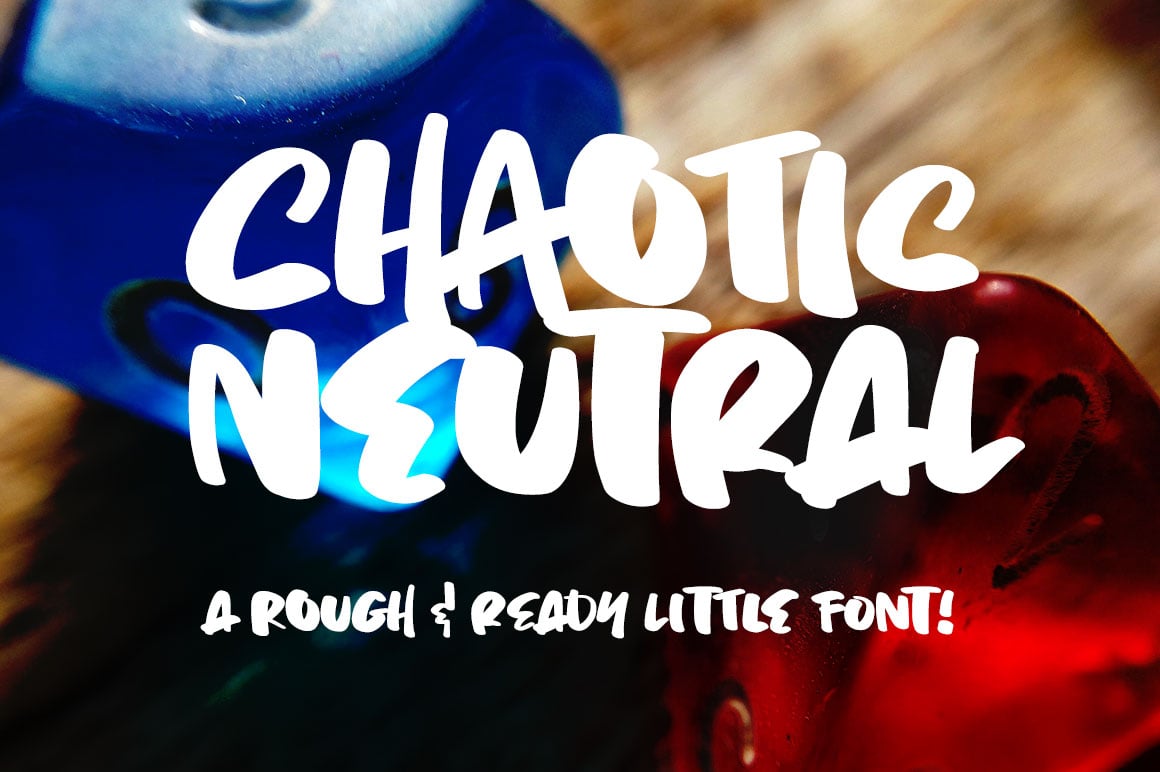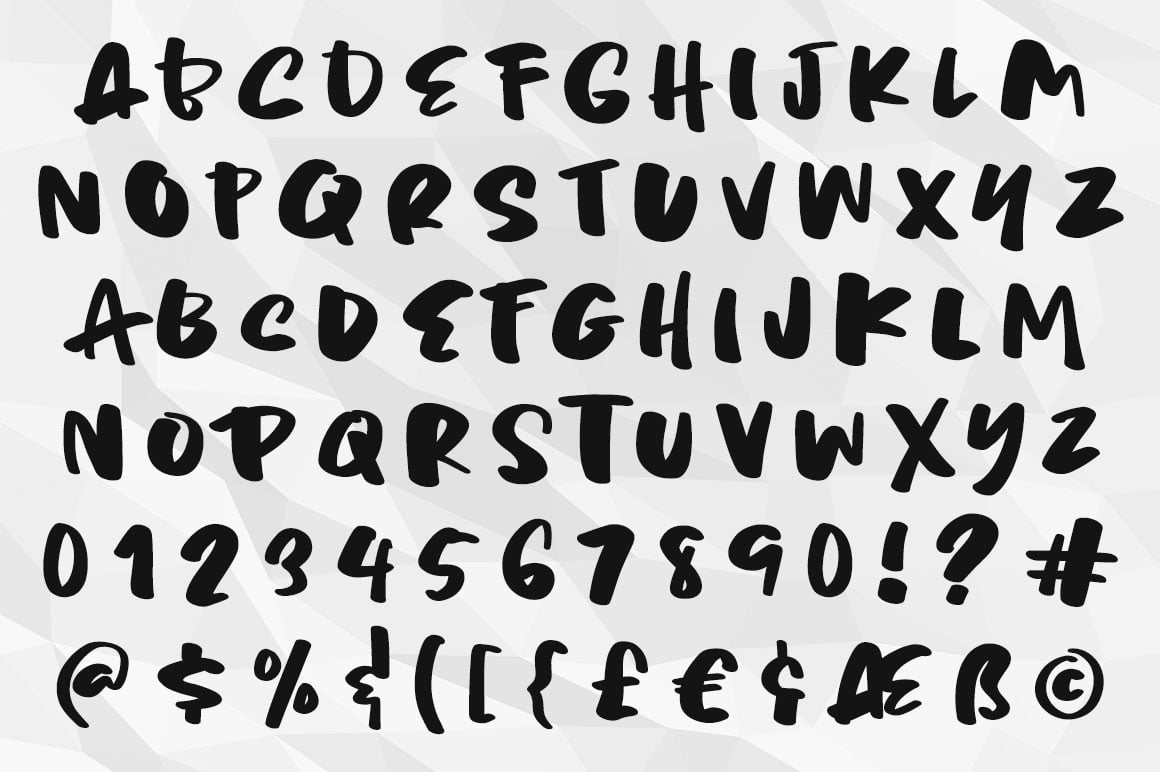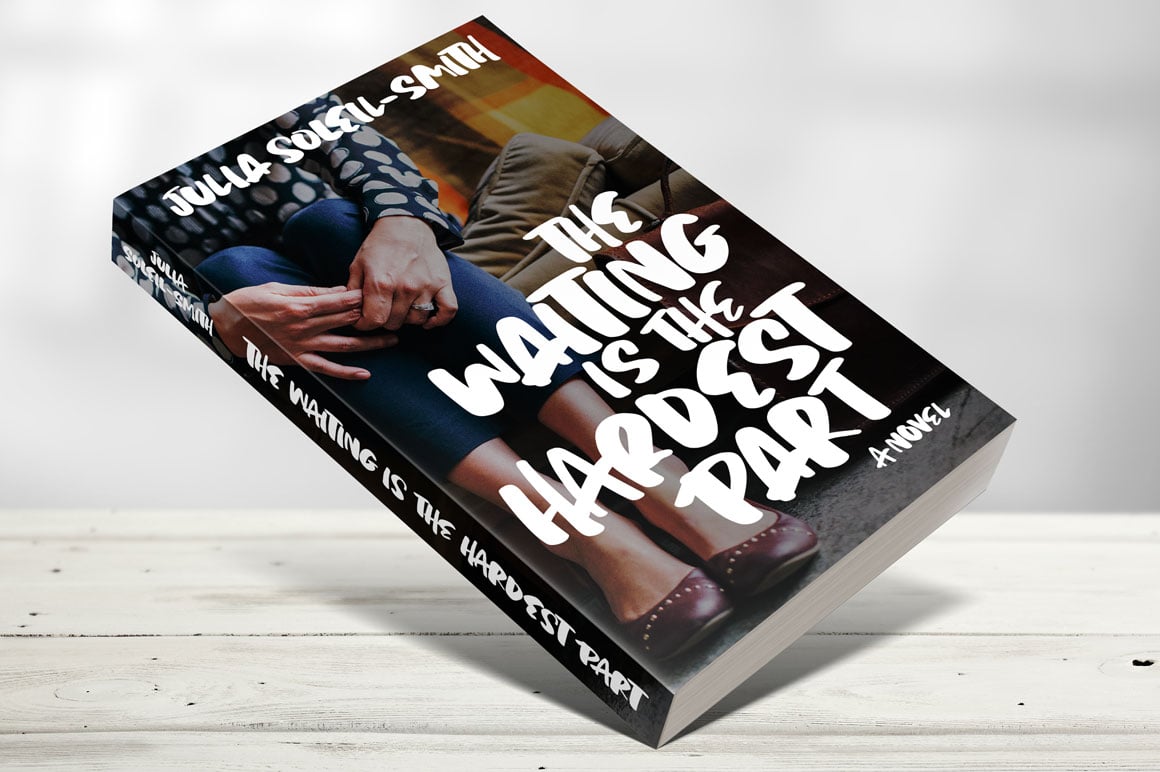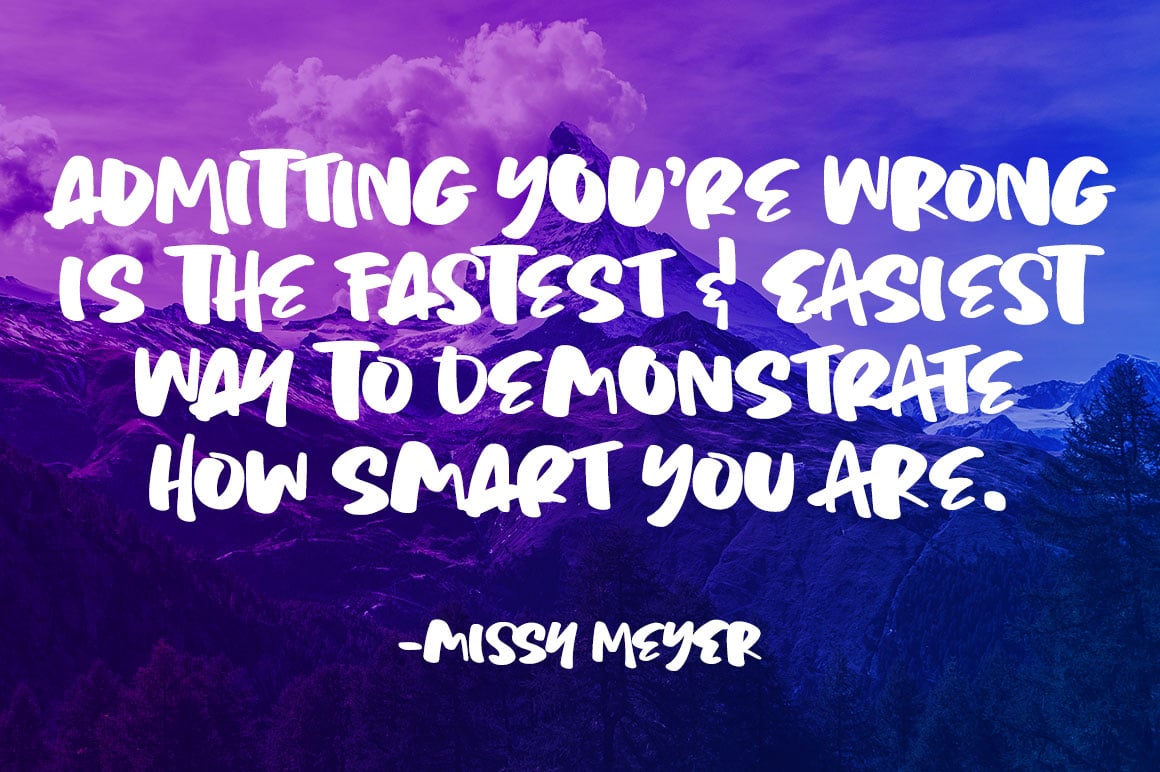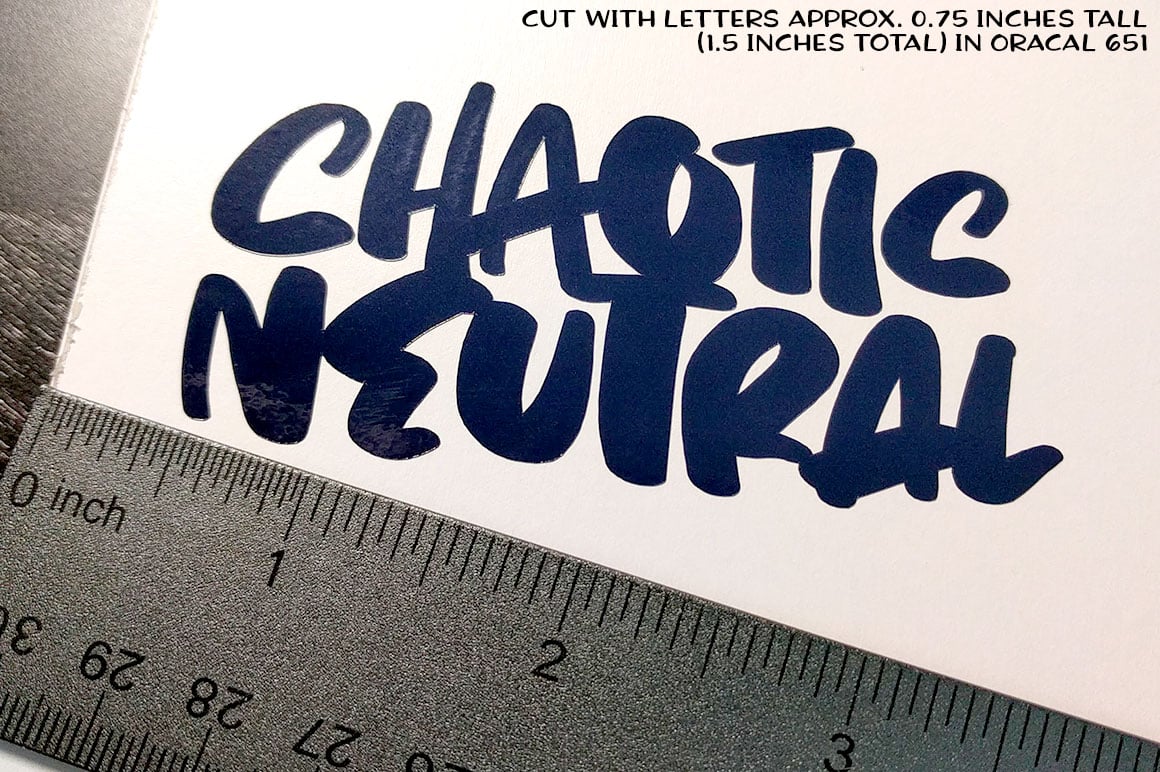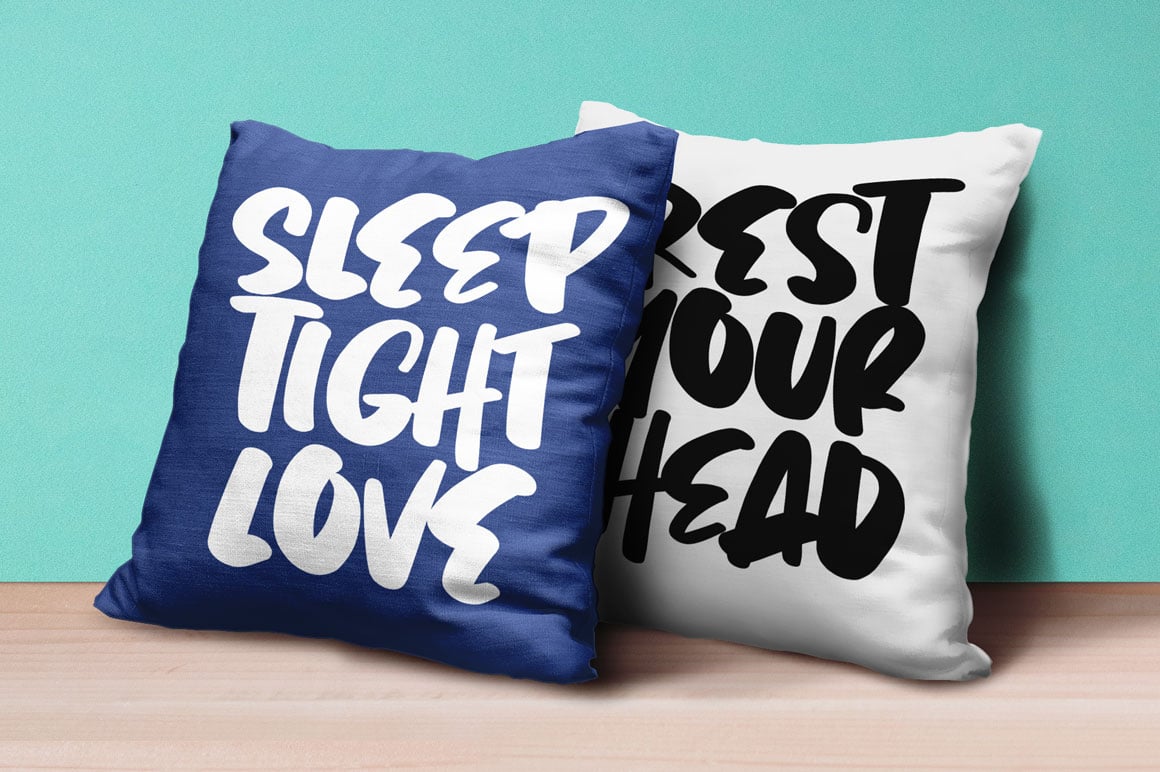
Chaotic Neutral
So I'm letting my inner nerd show through on this one: "Chaotic Neutral" is a Dungeons & Dragons thing. But the name applies to this font, too!
Chaotic: This font has all sorts of built-in irregularities. Some variation in letter heights and letter widths, and the stroke widths are all over the place. It's all about the hand-written messiness.
Neutral: And yet! I've smoothed the strokes a bit, and gone for as few nodes on each letter as I can (while still keeping a bit of roughness), so this font can be used for any kind of purpose -- not just print, but cutting out as well!
Chaotic Neutral also comes with over 300 extended Latin characters for language support, including the most-requested ß, Æ, Å, Ø, Œ, and tons more!
Chaotic Neutral includes:
- A-Z, a-z, 0-9, and a full brace of punctuation
- 485 total glyphs, including over 300 extended Latin characters
- Reduced nodes for easy crafting and cutting